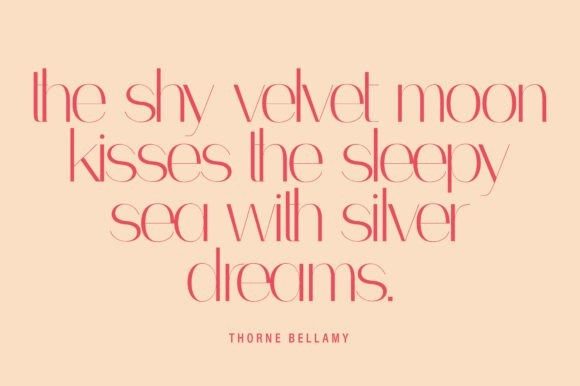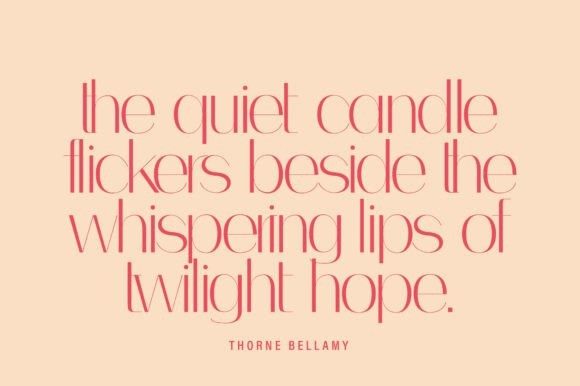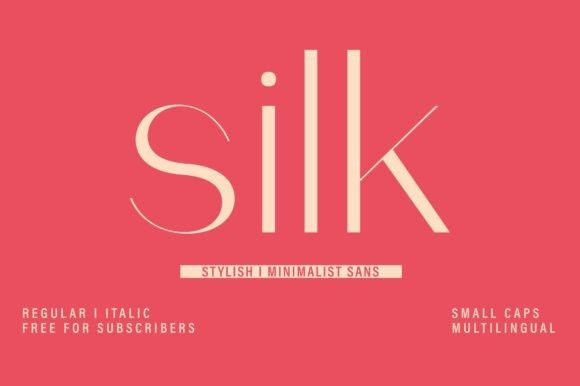
Silk Sans Serif Font
Silk Font—crafted for elegance, clarity, and modern appeal.Perfect for branding, editorial layouts, social media graphics, and packaging, the Silk sans-serif font blends soft sophistication with clean geometry.
Featuring Regular and Italic styles, Small Caps, and multilingual support, the Silk font is a versatile choice for designers who value both beauty and function.
Whether you’re creating luxury logos, fashion lookbooks, or minimalist websites, the Silk font delivers timeless refinement with a contemporary twist.